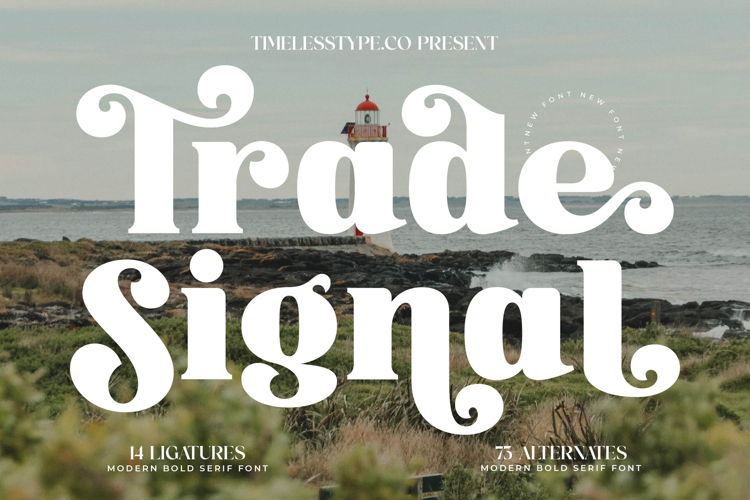
Trade Signal - Modern Bold Serif Font
Elevate your designs with Font Trade Signal - Modern Bold Serif Font Serif Display, a striking typeface meticulously crafted to command attention. This modern bold serif offers a unique blend of timeless elegance and contemporary flair, making it an ideal display font for projects demanding a distinctive, high-impact presence. Its generous curves and confident strokes exude sophistication, ensuring your message is not just seen, but remembered.
Discover unparalleled design flexibility with Font Trade Signal - Modern Bold Serif Font Serif Display. Featuring 14 creative ligatures and an impressive 75 alternates, this font empowers designers to achieve a truly customized and artistic aesthetic. These expressive swashes and stylistic alternatives transform ordinary text into captivating visual statements, perfect for creating unique logos and eye-catching headlines.
Font Trade Signal - Modern Bold Serif Font Serif Display is the definitive choice for projects seeking an air of exclusivity and refinement. It is perfect for luxury branding, high-end product packaging, fashion labels, prestigious event invitations, and compelling editorial design. Its bold yet graceful form guarantees readability while adding an undeniable touch of class to any creative endeavor.
With its extensive multilingual support, Font Trade Signal - Modern Bold Serif Font Serif Display adapts seamlessly across global markets, making it incredibly versatile for international projects. Invest in this powerful serif display to ensure your brand communicates with sophisticated authority and resonates powerfully with audiences worldwide, crafting truly memorable and impactful visual narratives.